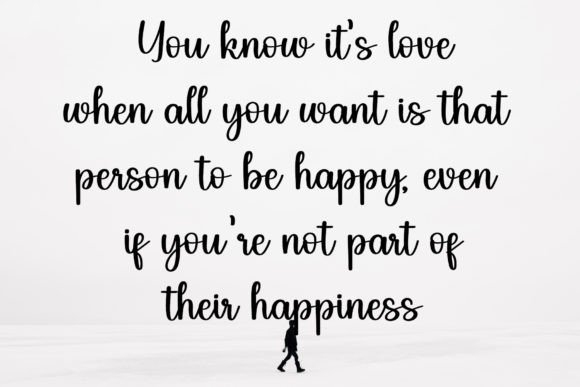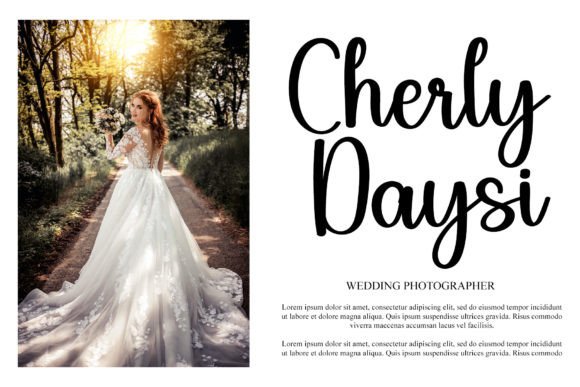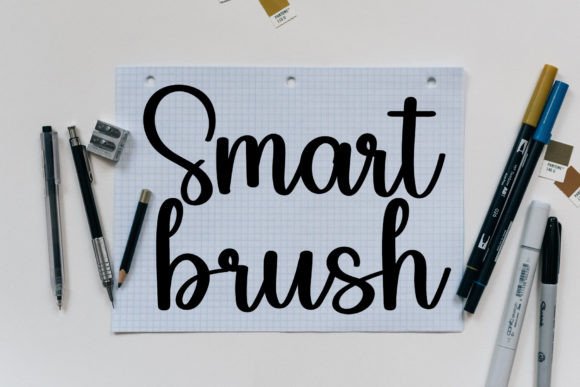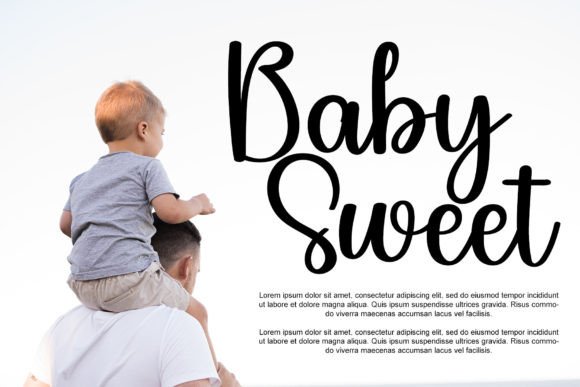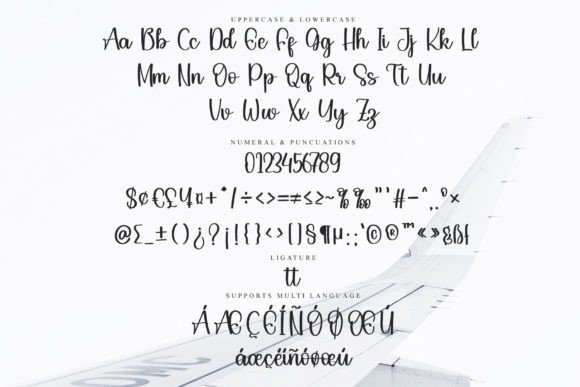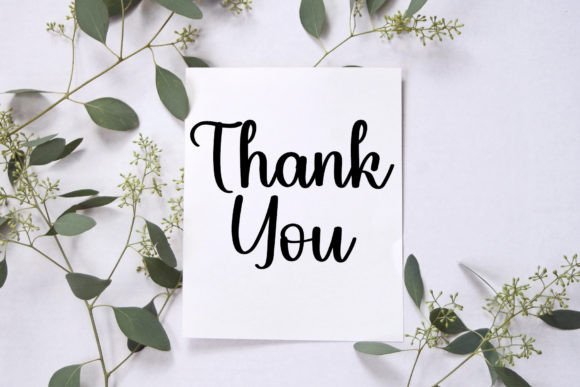
Fantasy Font: Add a Touch of Whimsy to Your Designs
Fantasy is a sweet and cursive handwritten font that has captured the hearts of designers and crafters alike. This gentle font is perfect for adding a joyful and romantic touch to a variety of design projects. In this article, we’ll dive into the world of Fantasy Font, exploring its features, uses, and benefits, as well as provide tips on how to make the most of this beautiful font.
What is Fantasy Font?
Fantasy Font is a type of script font that is characterized by its flowing, cursive lines and whimsical feel. It’s a handwritten font that exudes a sense of elegance and sophistication, making it perfect for designs that require a touch of romance and whimsy. The font is designed to look like it was written with a pen or pencil, giving it a personal and organic feel that’s hard to replicate with more traditional fonts.
Features of Fantasy Font
So, what makes Fantasy Font so special? Here are just a few of its key features:
- Sweet and cursive: Fantasy Font is a cursive font that features flowing lines and gentle curves. It’s perfect for creating beautiful, handwritten-style text that’s sure to capture the eye.
- Handwritten feel: This font has a distinctly handwritten feel that’s perfect for designs that require a personal touch. It’s like having your own personal handwriting, but without the hassle of actually writing it yourself!
- Versatile: Fantasy Font is incredibly versatile, and can be used for a wide range of design projects. Whether you’re creating a logo, a poster, or a social media graphic, this font is sure to shine.
- Easy to read: Despite its whimsical feel, Fantasy Font is surprisingly easy to read. This makes it perfect for designs that require a lot of text, such as blog posts or articles.
Uses for Fantasy Font
So, what can you use Fantasy Font for? The possibilities are endless! Here are just a few ideas to get you started:
- Wedding designs: Fantasy Font is perfect for wedding designs, such as invitations, programs, and decorations. Its romantic feel and elegant lines make it a popular choice for couples looking to add a touch of whimsy to their big day.
- Social media graphics: This font is also great for social media graphics, such as quotes, posters, and ads. Its playful feel and easy-to-read lines make it perfect for grabbing the attention of your followers.
- Branding and logos: Fantasy Font can also be used for branding and logos, particularly for businesses that want to convey a sense of elegance and sophistication.
- Crafting and DIY projects: Finally, Fantasy Font is a great choice for crafters and DIY enthusiasts. Whether you’re making signs, banners, or other handmade projects, this font is sure to add a touch of personality and whimsy.
Tips for Using Fantasy Font
Now that we’ve covered the features and uses of Fantasy Font, here are a few tips for getting the most out of this beautiful font:
- Use it sparingly: While Fantasy Font is beautiful, it can also be overwhelming if used too much. Try using it sparingly, such as for headings or titles, to add a touch of whimsy to your designs.
- Experiment with colors: Fantasy Font looks great in a variety of colors, so don’t be afraid to experiment! Try pairing it with bold colors or pastels to create a unique and eye-catching design.
- Pair it with other fonts: Finally, don’t be afraid to pair Fantasy Font with other fonts to create a unique and interesting design. Try pairing it with a bold, sans-serif font for a striking contrast.
Fantasy Font is a beautiful and versatile font that’s perfect for designers and crafters looking to add a touch of whimsy to their projects. With its sweet and cursive lines, handwritten feel, and easy-to-read text, this font is sure to capture the eye and convey a sense of elegance and sophistication. Whether you’re creating wedding designs, social media graphics, or crafting and DIY projects, Fantasy Font is a great choice. So why not give it a try and see what amazing designs you can create?